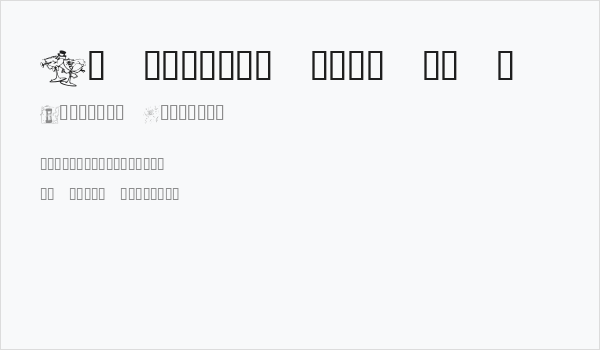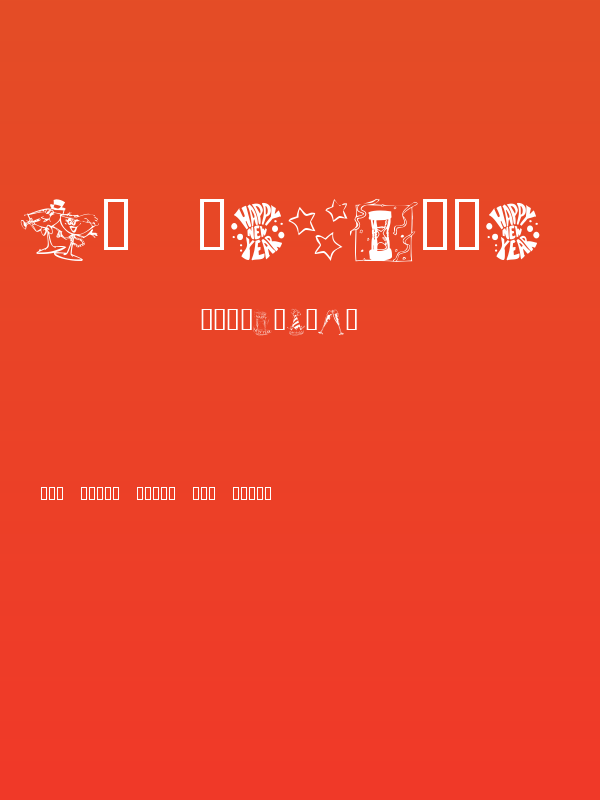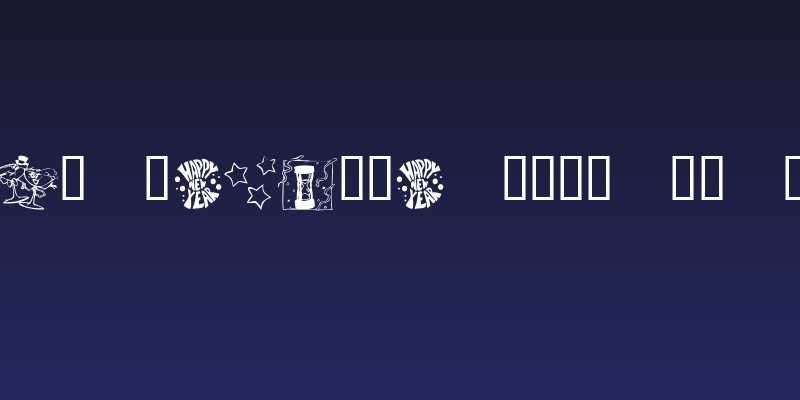
KR Welcome 2002 Pt 1 Font
KR Welcome 2002 Pt 1 Description
This decorative font is themed around New Year's celebrations, featuring playful and festive elements integrated into each character. The uppercase letters are adorned with party hats, fireworks, and champagne bottles, creating a lively and celebratory atmosphere. The font is highly stylized, with each letter incorporating unique illustrations that capture the essence of a New Year's party. The characters are bold and eye-catching, making them ideal for festive occasions. The font's whimsical design is perfect for adding a touch of fun and excitement to any project.